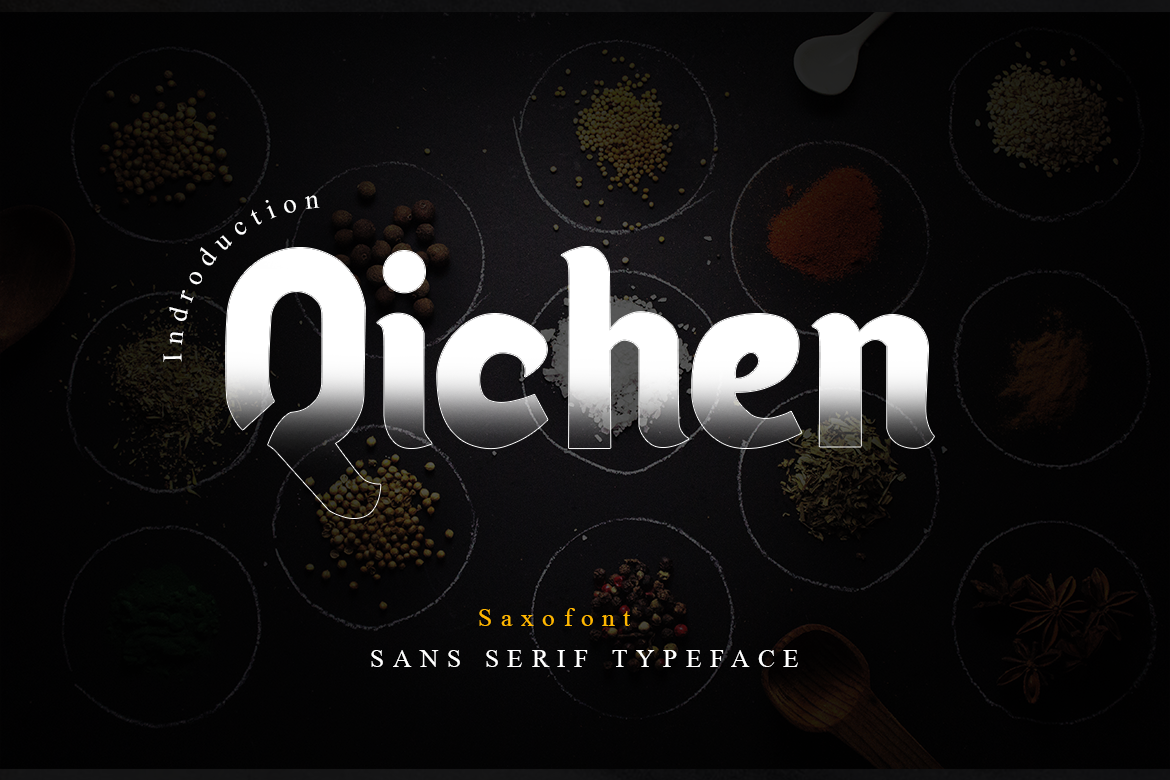
Qichen - Sans Serif Font
Qichen is a bold and stylistic sans serif font. Use it to make your ideas even more realistic and create spectacular designs!